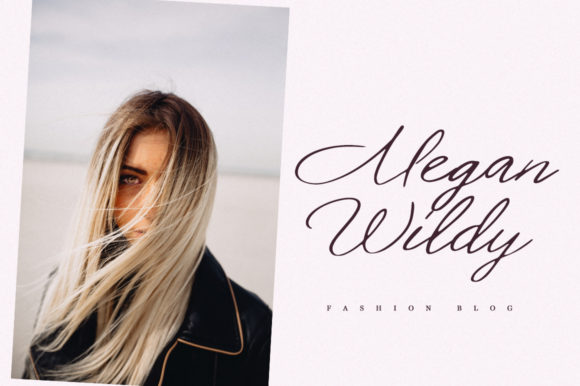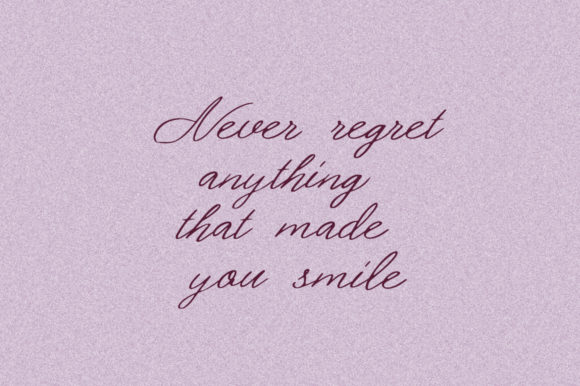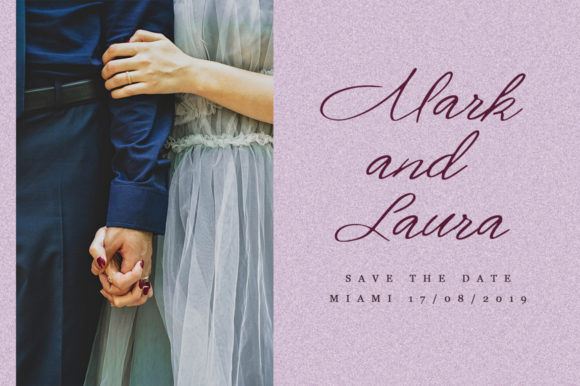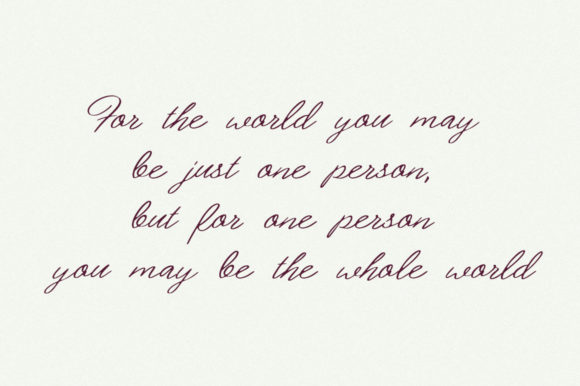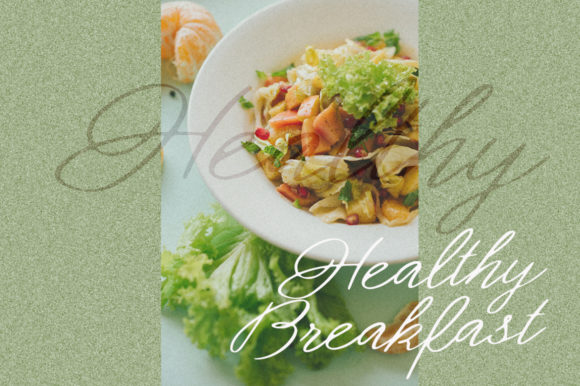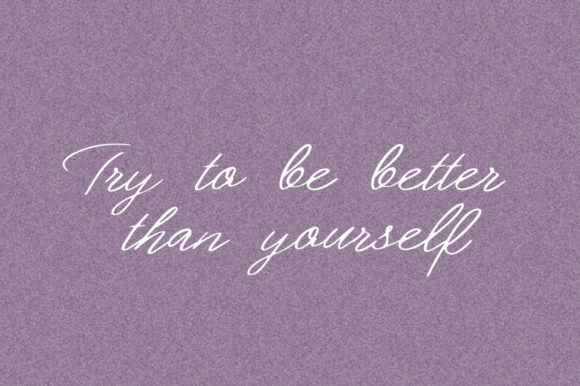
Discover the Effortless Charm of Fomell Font
There’s nothing quite like the feeling of finding that perfect font to bring your design to life. Whether you’re a seasoned pro or just starting out, the hunt for the perfect typography can be a thrilling adventure. And, trust us, you’re in luck because we’ve got just the thing for you – Fomell Font, a stunning handwritten font that’s sure to leave a lasting impression.
This beautiful font boasts a light and cool aesthetic with a sophisticated touch that’s perfect for adding a touch of elegance to your designs. Whether you’re creating a branding package, a wedding invitation, or a social media graphic, Fomell Font is the perfect choice to make your work stand out from the crowd. As a designer, you know how valuable it is to have a versatile font that can elevate your designs and make them truly unforgettable.
Fomell Font Key Features
- Unique Characteristics: Fomell Font features a unique blend of modern and vintage elements, making it ideal for designs that require a touch of sophistication and elegance.
- Font Pairing: Fomell Font can be paired with a variety of font styles to create a unique and visually appealing design, making it a versatile choice for designers and typographers.
Fomell Font Review
Overall, I’m quite impressed with the Fomell Font. It’s a beautiful, elegant script font that works perfectly for a wide range of applications, from invitations to branding materials. ✨
- Unique Style: Fomell Font has a distinct, hand-written feel that sets it apart from other script fonts. It’s perfect for adding a touch of personality to your designs.
- High-Quality Glyphs: The font includes a wide range of glyphs, from standard letters and numbers to accents and punctuation marks. The quality of the glyphs is top-notch, with smooth curves and crisp lines.
- Good Legibility: Despite its elegant design, Fomell Font is still easy to read, even at smaller font sizes.
- Limited Language Support: Fomell Font only includes support for a limited number of languages, which may be a concern for designers working with international clients.
- No Bold or Italic Styles: The font only includes regular weight, which may limit its versatility in certain design situations.
I’d highly recommend Fomell Font for designers looking for a beautiful, elegant script font. While it has some limitations, its unique style and high-quality glyphs make it a valuable addition to any design library.
Tips for Getting the Most Out of Fomell Font
Use Fomell Font for headings and titles to create a professional and modern look.
Experiment with different font sizes and styles to add emphasis and visual interest.
Combine Fomell Font with other fonts and design elements to create a unique and cohesive look.
Fomell Font is ideal for:
– Business presentations and reports
– Marketing materials and brochures
– Creative projects and artwork
– Personal branding and identity